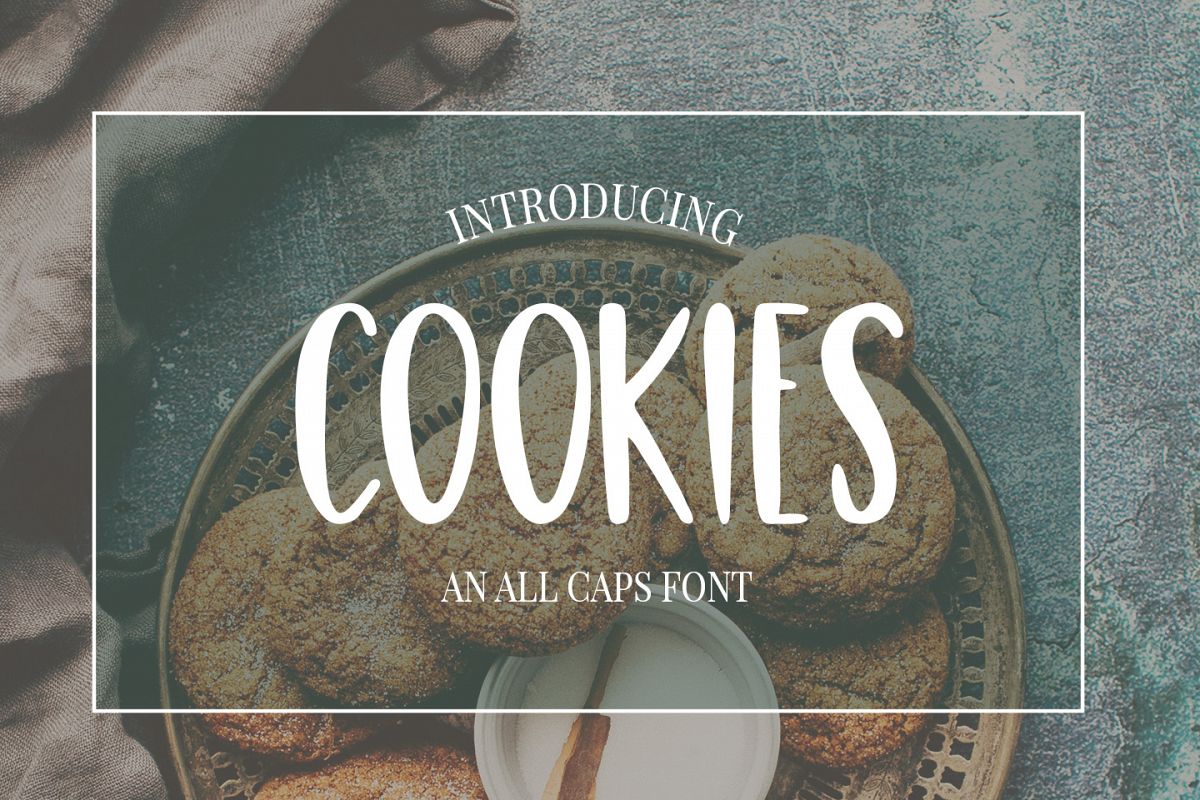
Cute, Casual, Handwritten font COOKIES
COOKIES a fun and casual all caps font. Great for Menu's, cards, Logo's, Posters, Packaging, Invites, Flyers, and any other designs. This font is also perfect for SVG designs.